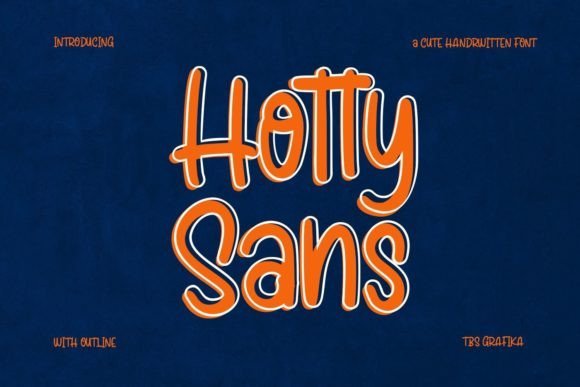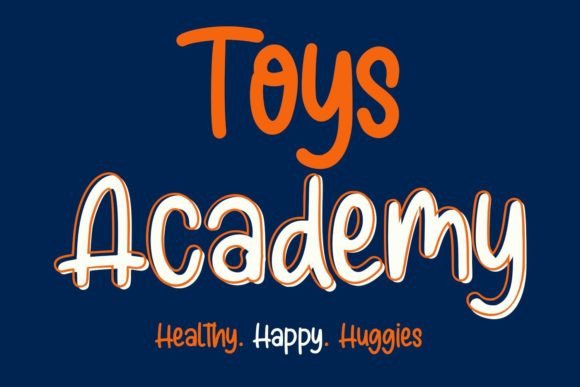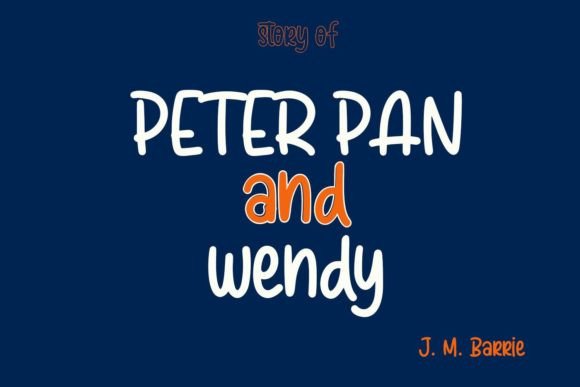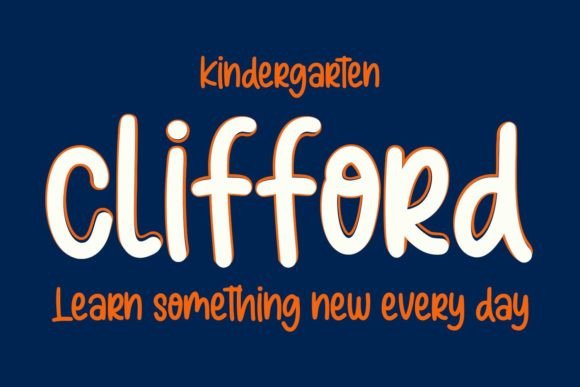
Get Ready to Spice Up Your Designs with the Hotty Sans Font
Have you ever been stuck in a creative rut, staring at a blank page, desperately searching for the perfect font to bring your design to life? You’re not alone! We’ve all been there. But what if we told you that the solution is just a few clicks away? Enter the Hotty Sans Font, a fun and playful handwritten font that’s about to become your new best friend.
This quirky font is designed to add a touch of whimsy to your designs, making it perfect for a wide range of projects, from social media graphics to branding materials. And the best part? It’s incredibly versatile, so you can use it in a variety of contexts without losing its charm. Whether you’re a seasoned designer or just starting out, the Hotty Sans Font is a valuable addition to your toolkit.
- Unique Characteristics: This sans-serif font features a modern and clean design with a unique blend of geometric and organic shapes, making it ideal for use in digital and print media.
- Kerning and Ligatures: The font includes advanced kerning and ligature pairs to ensure smooth and professional typography.
Hotty Sans Font Review
I’ve been working with fonts for years, and I have to say, Hotty Sans is a unique addition to the family. ✨ The first thing that caught my attention is the friendly, approachable feel it gives to any text. It’s perfect for casual designs, like social media posts or even branding for a fun startup.
Another aspect where Hotty Sans shines is its versatility. ✨ You can use it for headings, body text, or even as a display font. It’s a great option when you need a font that can adapt to different contexts without losing its charm.
However, there are some limitations to consider. ⚠️ The font might not be the best choice for formal or professional designs. Its casual feel might not convey the level of sophistication you’re looking for in a more formal setting. Additionally, the font family is relatively small, so you might need to get creative with customizing it to fit your needs.
- Limited font family size
- May not be suitable for formal designs
Overall, Hotty Sans is a solid choice for designers who need a friendly, approachable font for their projects. While it may not be the best fit for every design, it’s definitely worth considering for the right project.
Getting the Most Out of Hotty Sans Font
For optimal results, use Hotty Sans Font in combination with bold or italic text to add emphasis and create visual interest.
Experiment with different font sizes and line heights to create a balanced and readable layout.
Hotty Sans Font is ideal for use in:
- Editorial and publishing content
Alternatives to Hotty Sans Font
Montserrat is a clean and modern sans-serif font designed by Julieta Ulanovsky. It is perfect for digital design, especially for headings and titles. Montserrat is more geometric and has a more minimalist look compared to Hotty Sans Font, making it ideal for creating a sleek and sophisticated design.
Avenir is a classic sans-serif font designed by Jean François Porchez. It is known for its clean and elegant lines, making it suitable for a wide range of designs, from corporate to creative projects. Avenir is more refined and has a more subtle look compared to Hotty Sans Font, making it ideal for creating a professional and polished design.
Open Sans is a modern sans-serif font designed by Steve Matteson. It is highly legible and versatile, making it perfect for digital design, especially for body text and captions. Open Sans is more rounded and has a more approachable look compared to Hotty Sans Font, making it ideal for creating a friendly and approachable design.